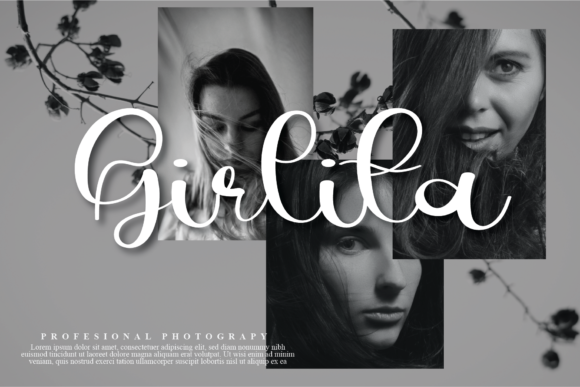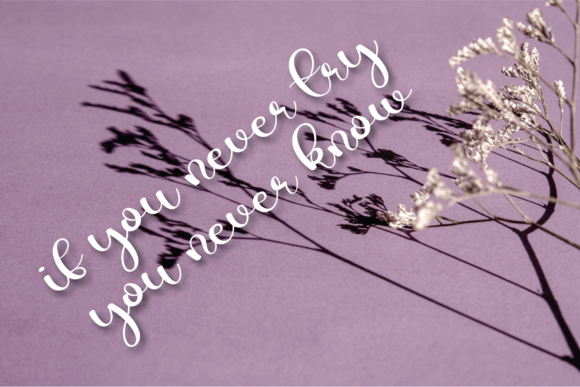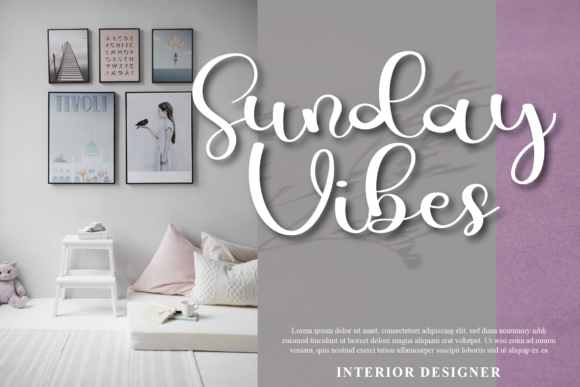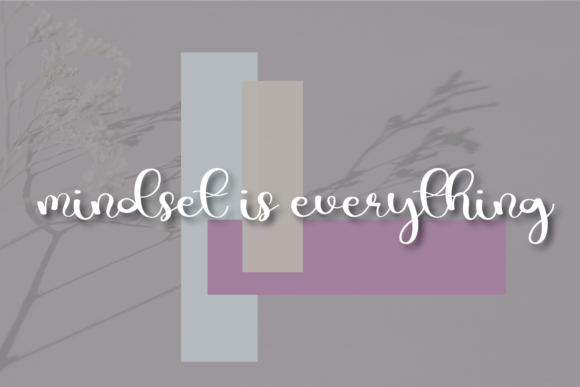
The Boho Font: A Sweet and Chic Handwritten Delight
I’ll never forget the design project that led me to discover the Boho font. I was working on a branding project for a trendy boutique, and I was struggling to find the perfect font that captured the essence of the brand. The client wanted something that was both elegant and playful, formal and casual. I spent hours scouring through font libraries, but nothing seemed quite right. That’s when I stumbled upon Boho, and it was love at first sight! 💕
- ✅ Sweet and round letterforms that add a touch of whimsy to any design
- ✅ Chic and elegant, perfect for formal or casual designs
- ✅ Versatile and adaptable to various design styles
- ⚠️ Some letters may appear a bit too rounded, which can make them blend together at very small font sizes
- ⚠️ Limited character set, so it may not be suitable for designs that require a wide range of special characters
The Designer Inspiration Behind Boho
Boho font was inspired by the free-spirited and eclectic world of bohemian fashion. The designer behind Boho wanted to create a font that captured the essence of this carefree and artistic lifestyle. With its sweet and round letterforms, Boho font is perfect for designers who want to add a touch of whimsy and elegance to their designs.
Q: What is the best way to use Boho font in a design?
A: Boho font is versatile and can be used in a variety of design contexts, from formal to casual. Experiment with different font sizes, styles, and OpenType features to find the perfect fit for your design.
Q: Is Boho font suitable for body text?
A: While Boho font is highly legible, it’s best suited for headlines and titles. For body text, consider using a more traditional serif or sans-serif font for better readability.